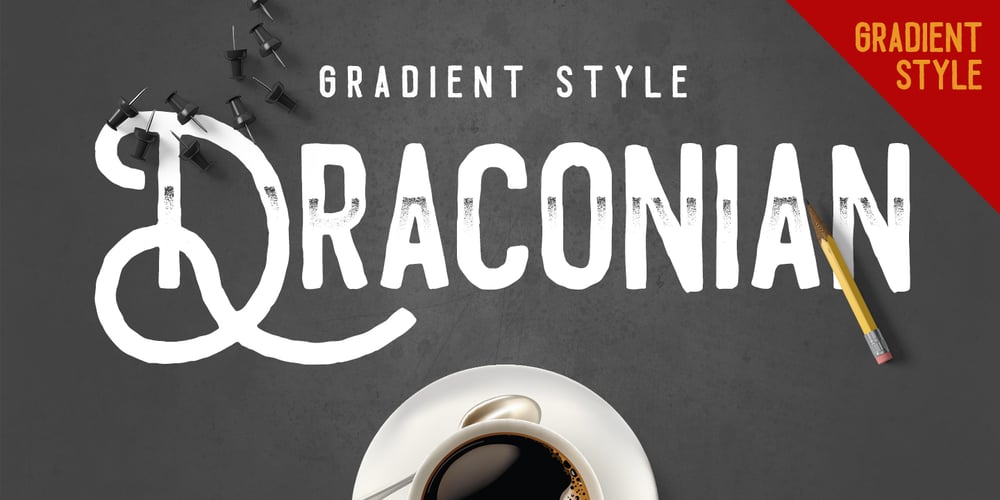
Draconian Font Family was designed by madededuk and published by madeDeduk. Draconian contains 2 styles and family package options. Draconian is a old school typeface with cool character! Draconian perfect for poster design, book covers, merchandise, fashion campaigns, newsletters, branding, advertising, magazines, greeting cards, album covers, and quote designs and more.